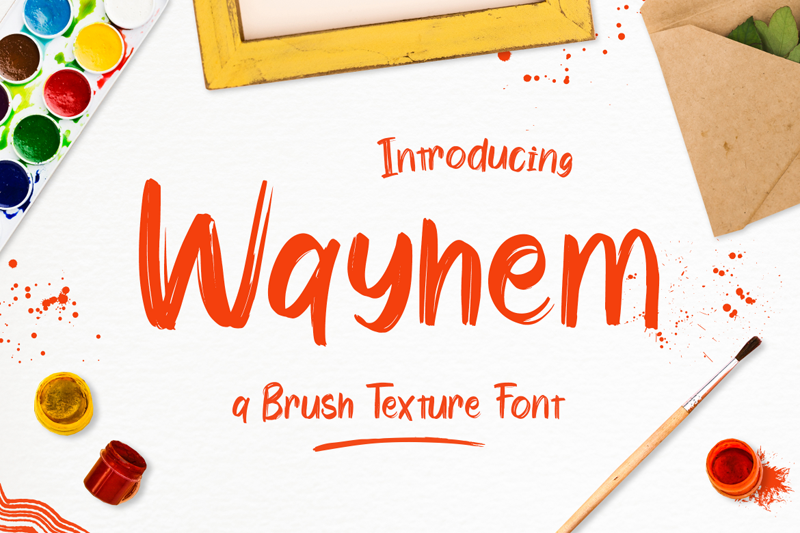
Wayhem is a textured brush font with rough and casual letters. It�s great for logos, branding, print projects and any attention drawing headline. Full Version Download Here : https://typefactory.co/product/wayhem-textured-brush-font/ https://www.creativefabrica.com/product/wayhem/ref/501262/ |